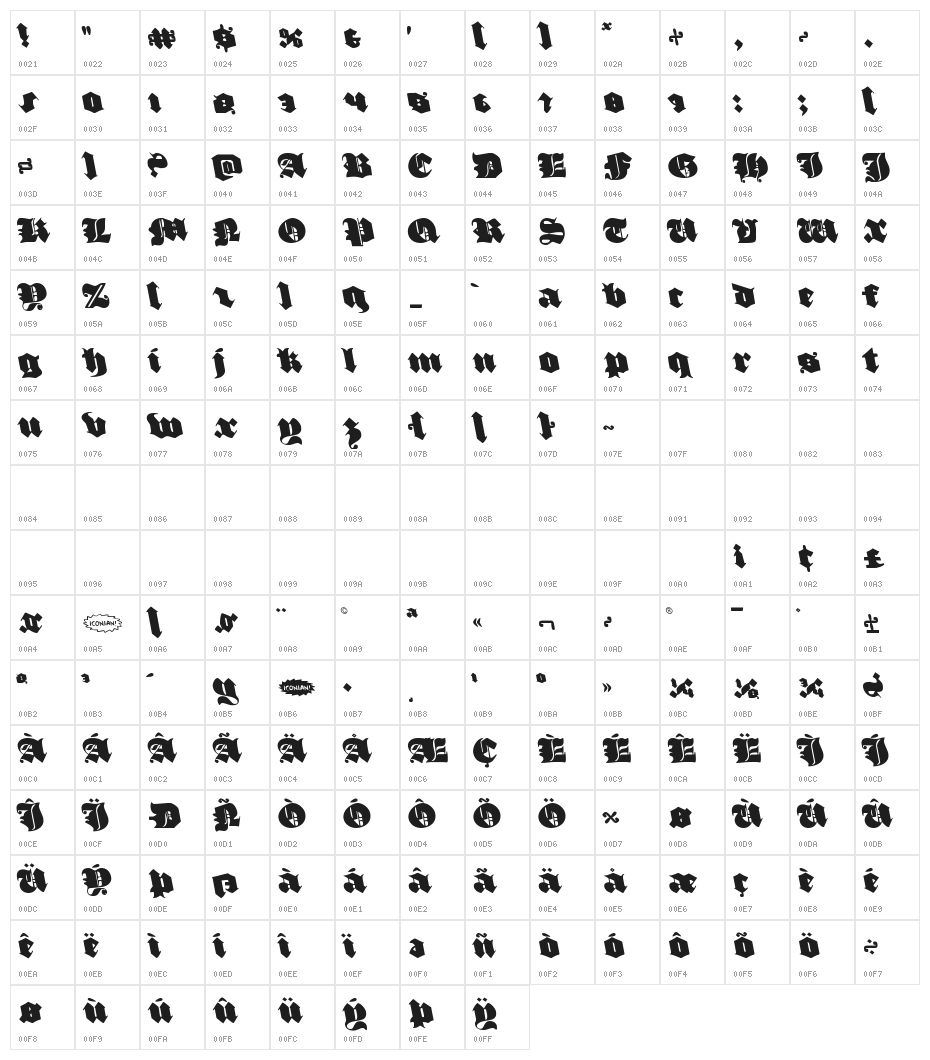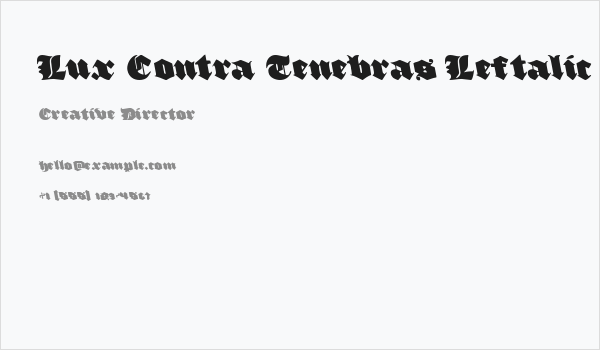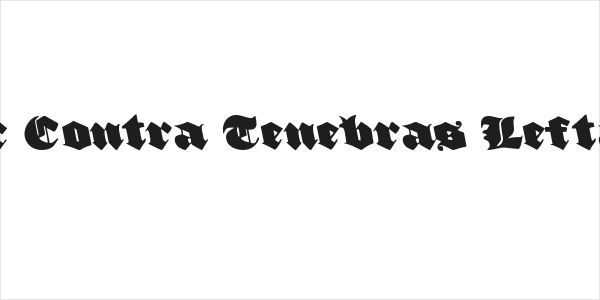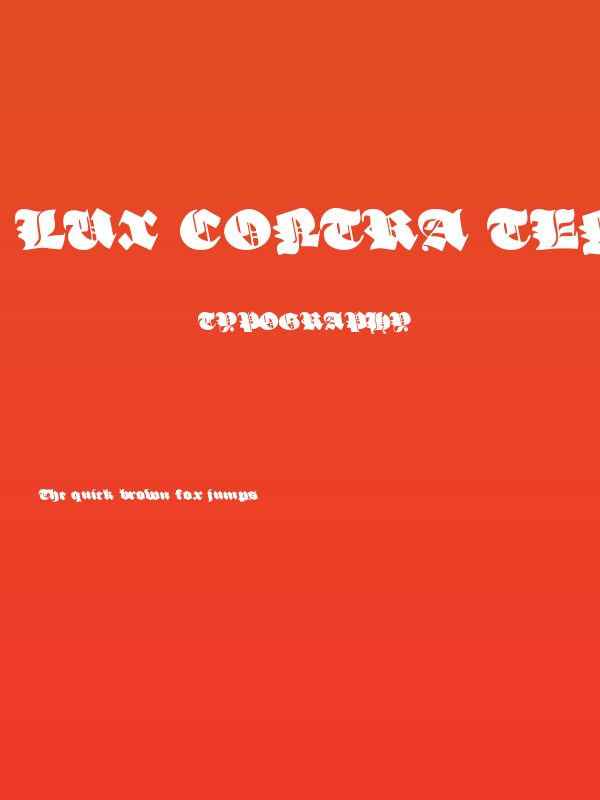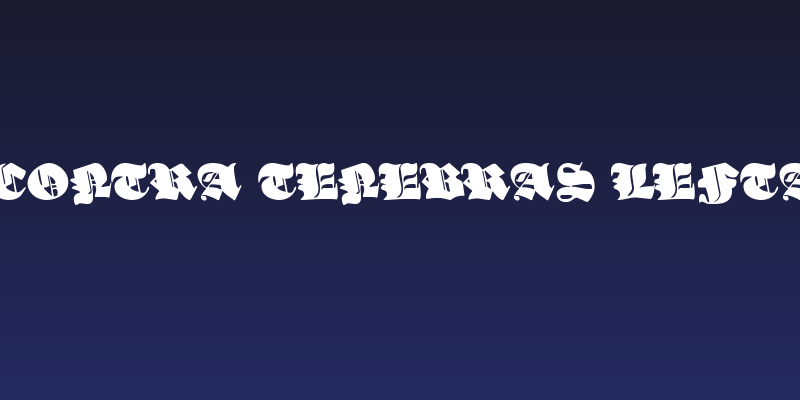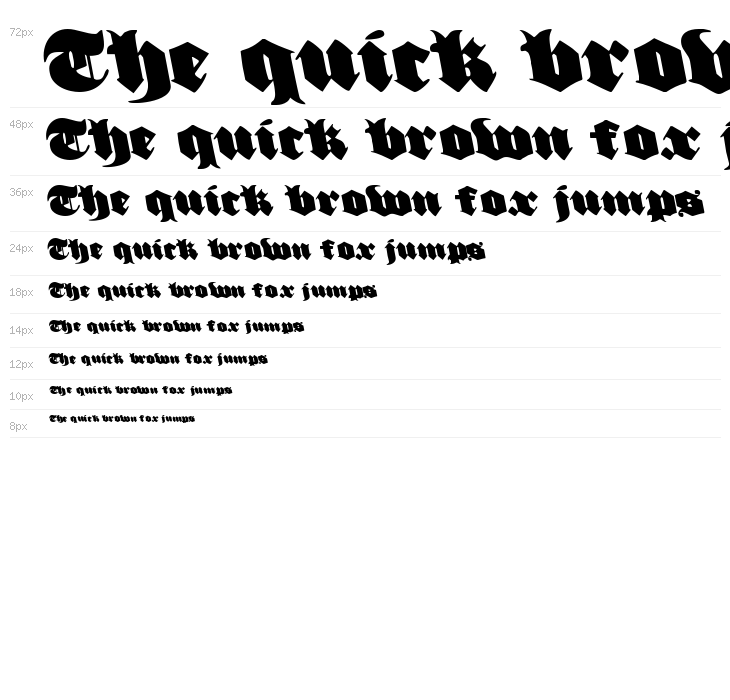
Lux Contra Tenebras Leftalic Font
Lux Contra Tenebras Leftalic Description
This font exhibits a bold and dramatic blackletter style, characterized by its intricate and ornate design. The letters are heavily stylized with sharp angles and elaborate flourishes, giving it a gothic and medieval appearance. The uppercase letters are particularly striking, with their exaggerated serifs and decorative elements. The lowercase letters maintain the same level of detail, ensuring consistency throughout the typeface. The numbers and special characters are equally ornate, making this font suitable for projects that require a historical or fantasy theme.
Overall StyleGothic, Medieval
Use CaseHeadlines, Logos, Decorative text
Proposed ProjectsIdeal for use in fantasy book covers, historical event posters, themed invitations, and branding for gothic or medieval-themed products.